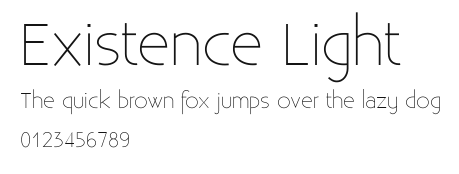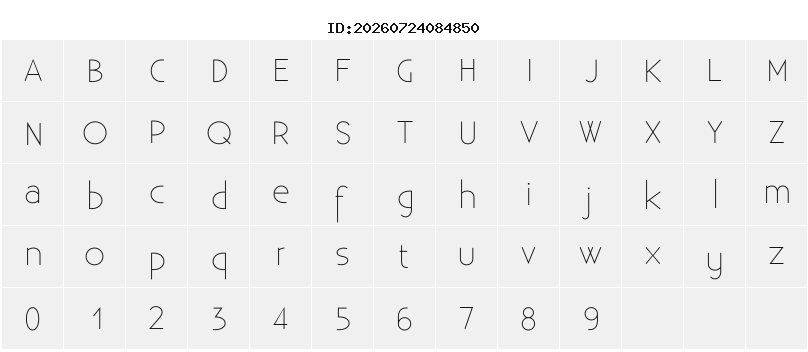
Existence Light Preview
• Font Name: Existence Light
• Font Style: Light
• Designer: Yeah Noah
• Manufacturer: Yeah Noah
About Existence Light.ttf
Existence Light.ttf is a modern, elegant sans-serif font designed for ultimate readability and visual harmony. Perfect for branding, headlines, web design, and print materials.